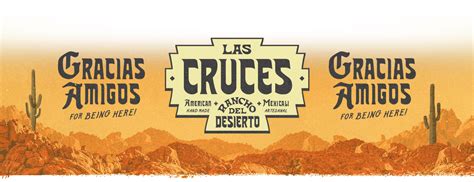
Iilas Cruces Font: A Comprehensive Guide
Hey guys! Ever stumbled upon a font that just clicks ? Maybe it’s got that perfect blend of modern and classic, or perhaps it just screams personality. Well, buckle up, because we’re diving deep into the world of the Iilas Cruces font ! This font has been making waves, and for good reason. It’s versatile, stylish, and can seriously elevate your design game. So, let’s explore everything you need to know about Iilas Cruces, from its origins and characteristics to how you can use it to create stunning visuals. Trust me, by the end of this article, you’ll be itching to incorporate this gem into your next project!
What is the Iilas Cruces Font?
Alright, let’s get down to the basics. The Iilas Cruces font is a typeface known for its contemporary yet timeless design. It usually features clean lines, balanced letterforms, and a distinct personality that makes it suitable for a wide range of applications. What sets it apart from other fonts is its versatility; it can be used for both headlines and body text, making it a go-to choice for designers aiming for a cohesive look. The font often includes various weights and styles, such as regular, bold, italic, and condensed versions, providing even more flexibility for different design needs. Whether you’re working on a sleek, modern website or a more traditional print project, Iilas Cruces can adapt to fit your vision. Its clarity and legibility ensure that your message is communicated effectively, while its unique character adds a touch of sophistication. You’ll find that it works particularly well in branding materials, editorial layouts, and even in digital advertising, where making a strong visual impact is crucial. The careful attention to detail in its design ensures that each character complements the others, creating a harmonious and visually appealing text. This makes Iilas Cruces a reliable and stylish option for any designer looking to enhance their work.
Key Characteristics of Iilas Cruces
So, what makes the Iilas Cruces font so special? Let’s break down its key characteristics. First off, the clean lines are a major draw. They give the font a modern, uncluttered feel, perfect for contemporary designs. Then there’s the balanced letterforms . Each character is meticulously crafted to ensure visual harmony, making the text easy on the eyes. The font also boasts a distinct personality , setting it apart from generic typefaces. This personality shines through in its unique curves and angles, adding character without sacrificing legibility. Versatility is another key aspect. Iilas Cruces works beautifully in both headlines and body text, maintaining readability and style across different sizes. The availability of various weights and styles (regular, bold, italic, condensed) further enhances its adaptability. This means you can use it for everything from impactful headings to detailed paragraphs, all while maintaining a consistent visual theme. Legibility is paramount, and Iilas Cruces excels in this area. Its clear and well-defined characters ensure that your message is easily understood, whether it’s displayed on a screen or printed on paper. Finally, the overall aesthetic of Iilas Cruces is one of sophistication and elegance , making it an excellent choice for projects that require a touch of class. All these characteristics combine to make Iilas Cruces a font that’s both functional and visually appealing, a rare find in the world of typography.
Where to Use Iilas Cruces Font
Okay, so you’re digging the Iilas Cruces font , but where can you actually use it? The possibilities are pretty much endless, guys! For branding , it’s a total winner. Think logos, business cards, and brand guidelines. Its clean and sophisticated look can really elevate a brand’s image. In the editorial world , Iilas Cruces shines in magazines, newspapers, and online articles. It’s super readable, making it perfect for long-form content. Websites and digital platforms are another great place to use this font. Whether it’s for headings, body text, or navigation menus, Iilas Cruces ensures a seamless and stylish user experience. Marketing materials like brochures, flyers, and posters can also benefit from its unique personality. It helps to grab attention and convey information effectively. If you’re into creative projects , such as invitations, greeting cards, or art prints, Iilas Cruces adds a touch of elegance and modernity. And let’s not forget mobile apps . Its legibility on small screens makes it an excellent choice for UI design. Basically, any project where you need a font that’s both stylish and functional, Iilas Cruces is your go-to. It’s versatile enough to adapt to different contexts while maintaining its distinctive charm. So go ahead, experiment, and see where this amazing font takes you!
How to Pair Iilas Cruces with Other Fonts
Alright, let’s talk about font pairing! The Iilas Cruces font is fantastic on its own, but pairing it with the right fonts can take your design to the next level. When pairing, you generally want to create contrast while maintaining harmony. For example, if you’re using Iilas Cruces for headings, try pairing it with a simpler, more neutral font for the body text. Sans-serif fonts like Helvetica , Arial , or Open Sans work well because they provide a clean contrast to Iilas Cruces’s more distinctive character. Alternatively, you could pair Iilas Cruces with a serif font like Georgia or Times New Roman for a more classic and traditional look. The key is to ensure that the fonts complement each other without clashing. Avoid fonts that are too similar to Iilas Cruces, as this can create a visually monotonous effect. Experiment with different combinations to see what works best for your specific project. Consider the overall tone and style of your design when making your font choices. A good rule of thumb is to stick to a maximum of two or three fonts in a single design to avoid visual clutter. By carefully selecting complementary fonts, you can enhance the impact of Iilas Cruces and create a more polished and professional final product. So, have fun experimenting and finding the perfect pairings to bring your designs to life!
Examples of Iilas Cruces in Action
Want to see the Iilas Cruces font in action? Let’s dive into some real-world examples! Imagine a luxury fashion brand using Iilas Cruces for its logo and website. The font’s elegance and sophistication perfectly complement the brand’s high-end image. Or picture a modern tech company using it in its marketing materials. The clean lines and contemporary feel of Iilas Cruces align perfectly with the company’s innovative spirit. In the publishing world , a magazine might use Iilas Cruces for its headlines and subheadings, creating a visually appealing and easy-to-read layout. A wedding invitation designer could use it to add a touch of sophistication to their designs, making each invitation feel special and unique. Think about a restaurant using Iilas Cruces on its menu to convey a sense of quality and attention to detail. In the digital realm, a mobile app developer might choose Iilas Cruces for its UI design, ensuring legibility and a sleek user experience. These examples highlight the versatility of Iilas Cruces and its ability to enhance a wide range of projects. Whether it’s adding a touch of elegance, conveying a sense of modernity, or simply ensuring readability, Iilas Cruces delivers every time. Seeing it in action helps to appreciate its potential and inspire new ways to incorporate it into your own designs. So, keep an eye out for Iilas Cruces in the world around you, and get inspired!
Tips for Using Iilas Cruces Effectively
Alright, let’s wrap things up with some pro tips on using the Iilas Cruces font effectively! First off, less is more . Don’t overuse it. Iilas Cruces is impactful, so let it shine by not overwhelming your design with too much of it. Pay attention to spacing . Proper kerning and leading can make a huge difference in readability and visual appeal. Experiment with different weights and styles. The Iilas Cruces family often includes regular, bold, italic, and condensed versions, so take advantage of the variety to create visual interest. Consider your audience . Make sure the font aligns with the tone and style of your message and the preferences of your target audience. Test readability . Always check how the font looks on different devices and in various sizes to ensure it remains legible. Use it strategically . Think about where Iilas Cruces will have the most impact, whether it’s in headlines, logos, or key call-outs. Don’t be afraid to experiment with color . The right color palette can enhance the font’s visual appeal and complement your overall design. Get feedback . Ask others for their opinions on your font choices to ensure it resonates with a wider audience. Stay consistent . Use Iilas Cruces consistently throughout your project to maintain a cohesive visual identity. By following these tips, you can harness the full potential of Iilas Cruces and create stunning designs that leave a lasting impression. So go out there and make some magic happen!